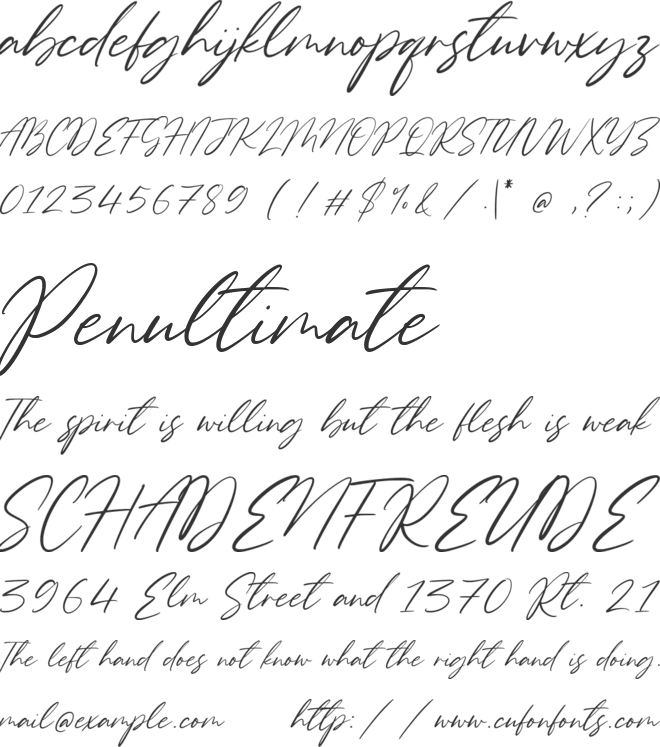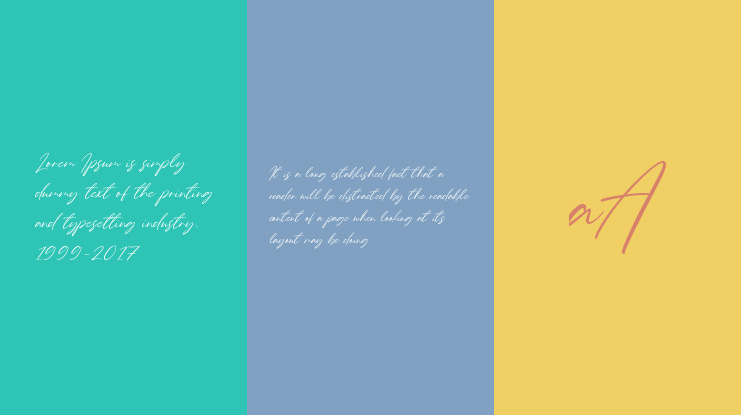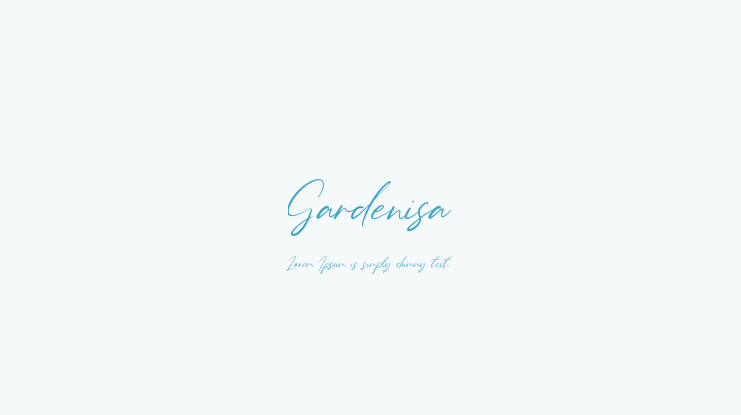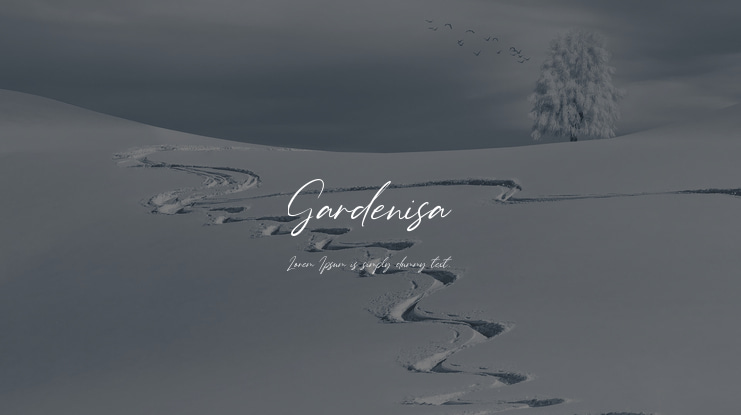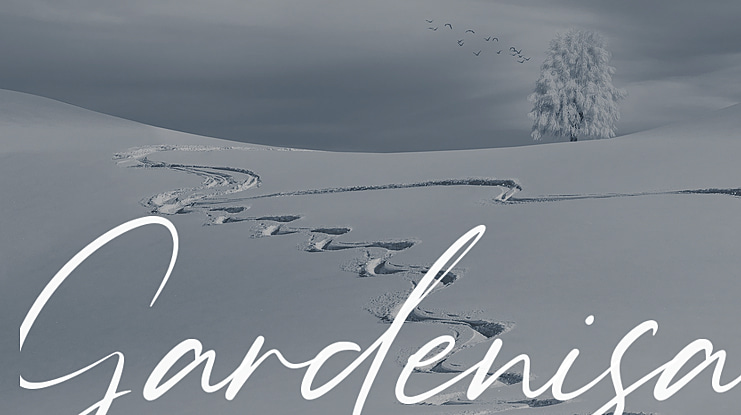
Gardenisa Font
Balpirick Studio
Proudly Present, Gardenisa Font.
Gardenisa is a Beauty Modern Calligraphy font.
Gardenisa is perfect for product packaging, branding project, megazine, social media, wedding, or just used to express words above the background.
Gardenisa font preview